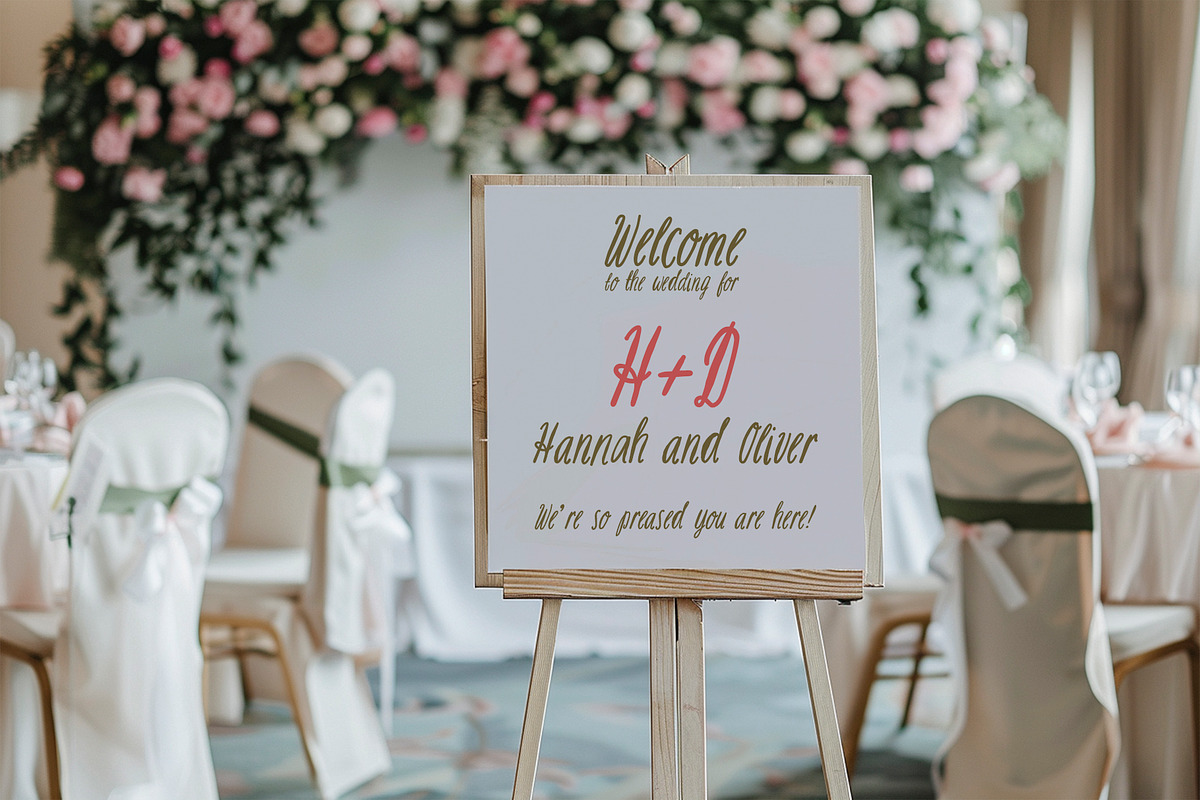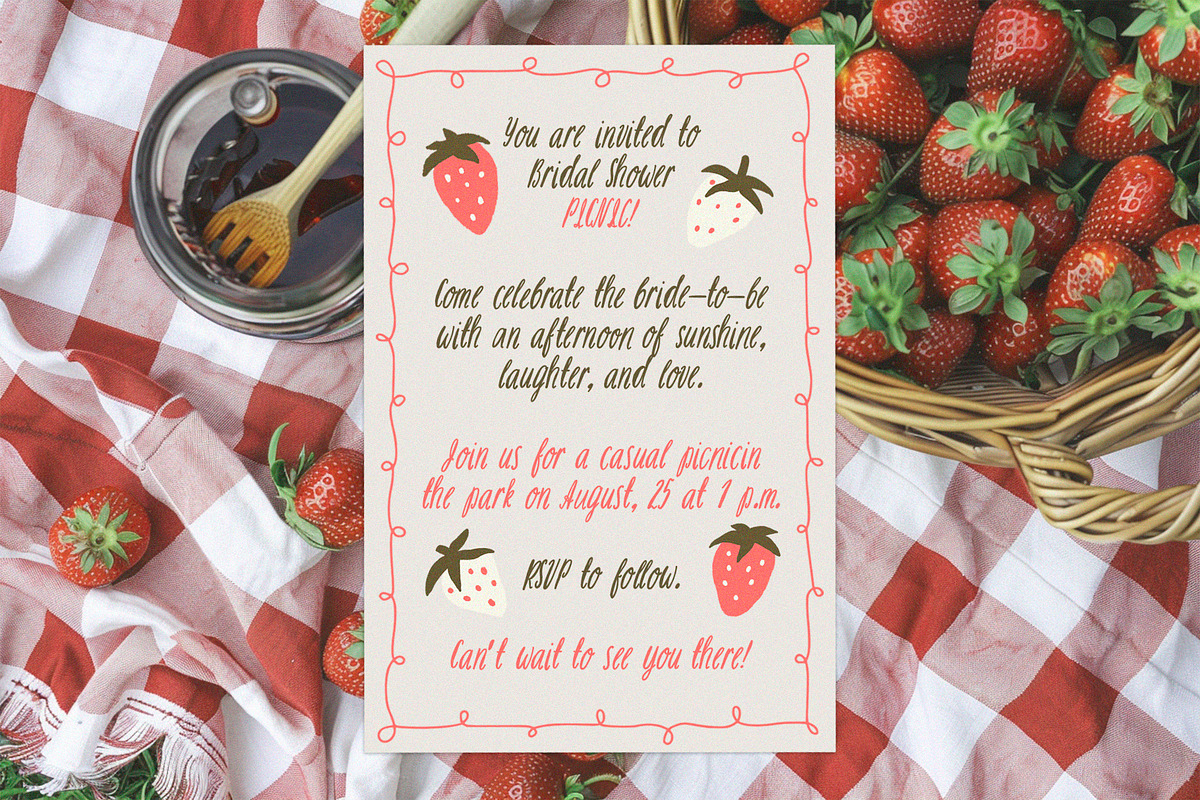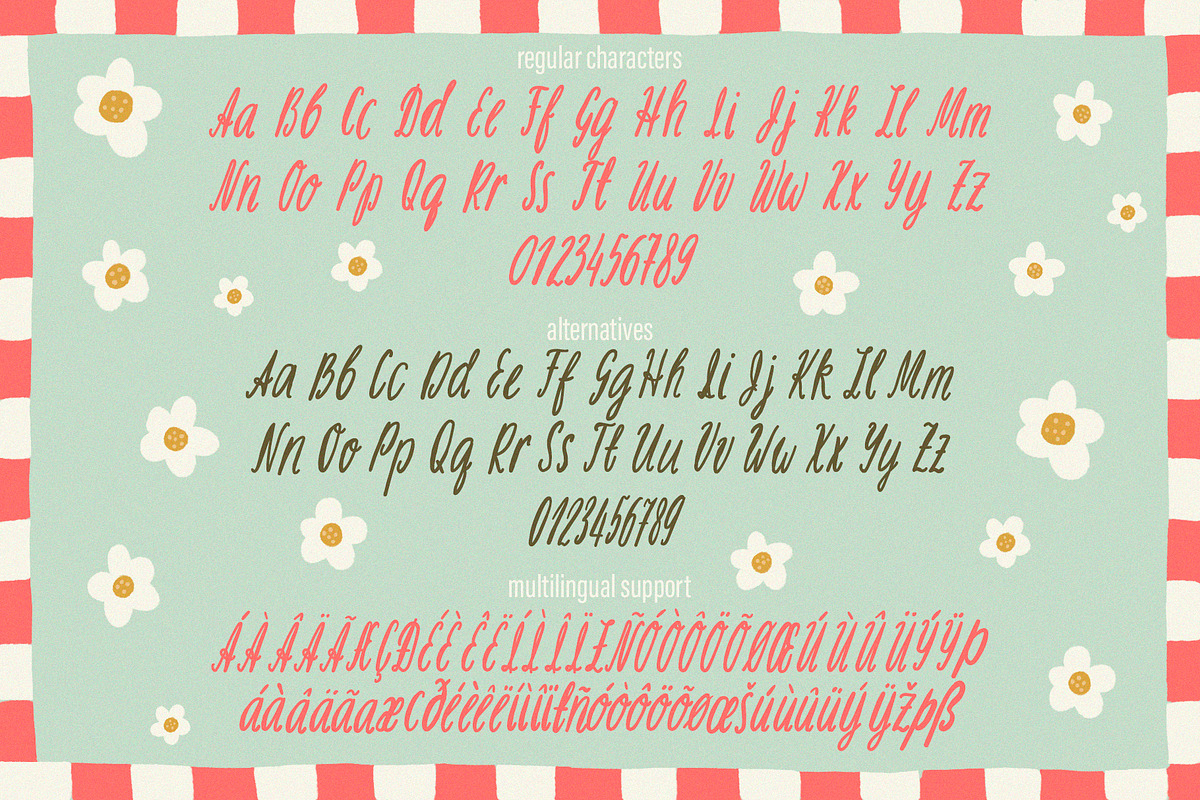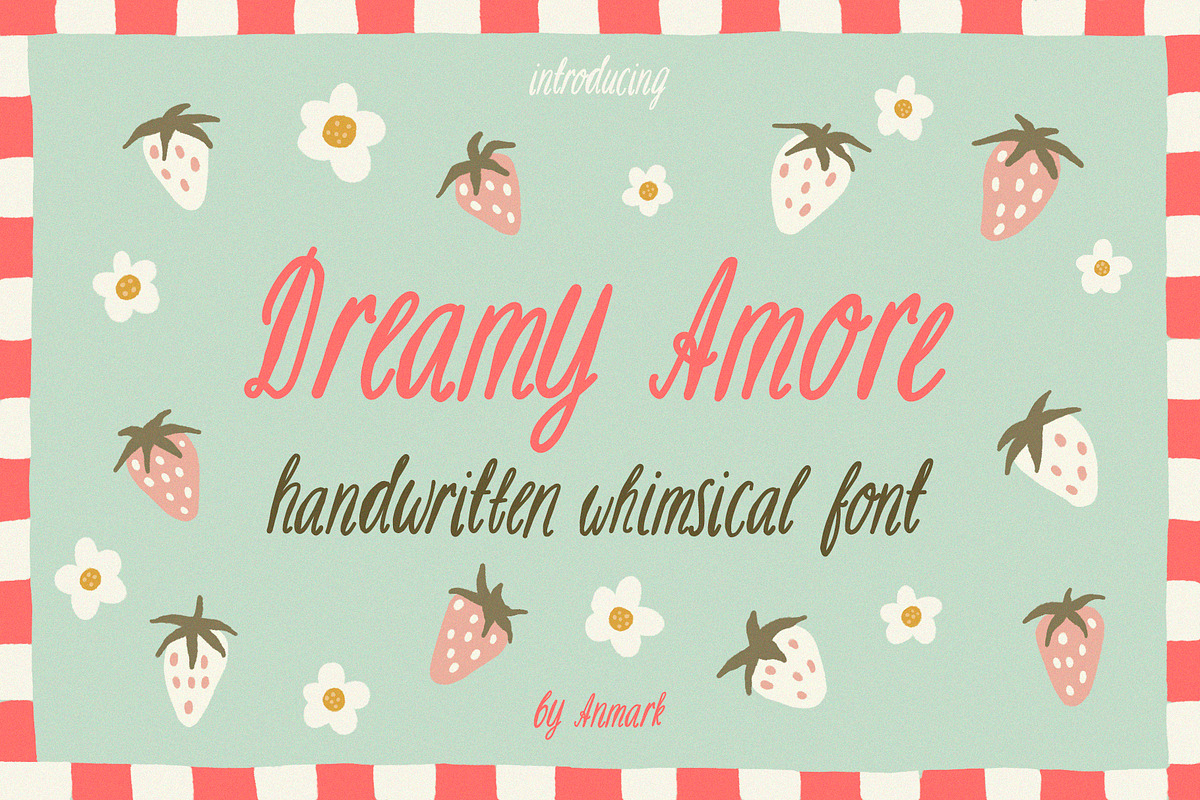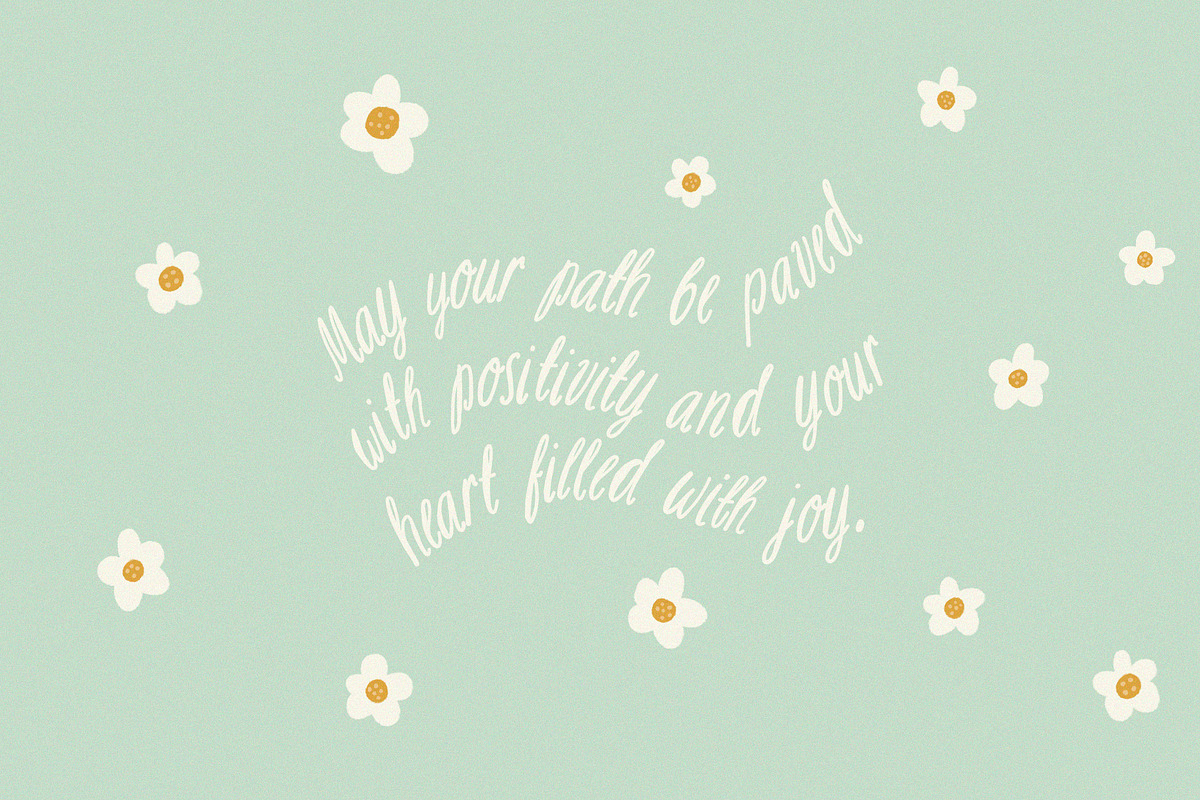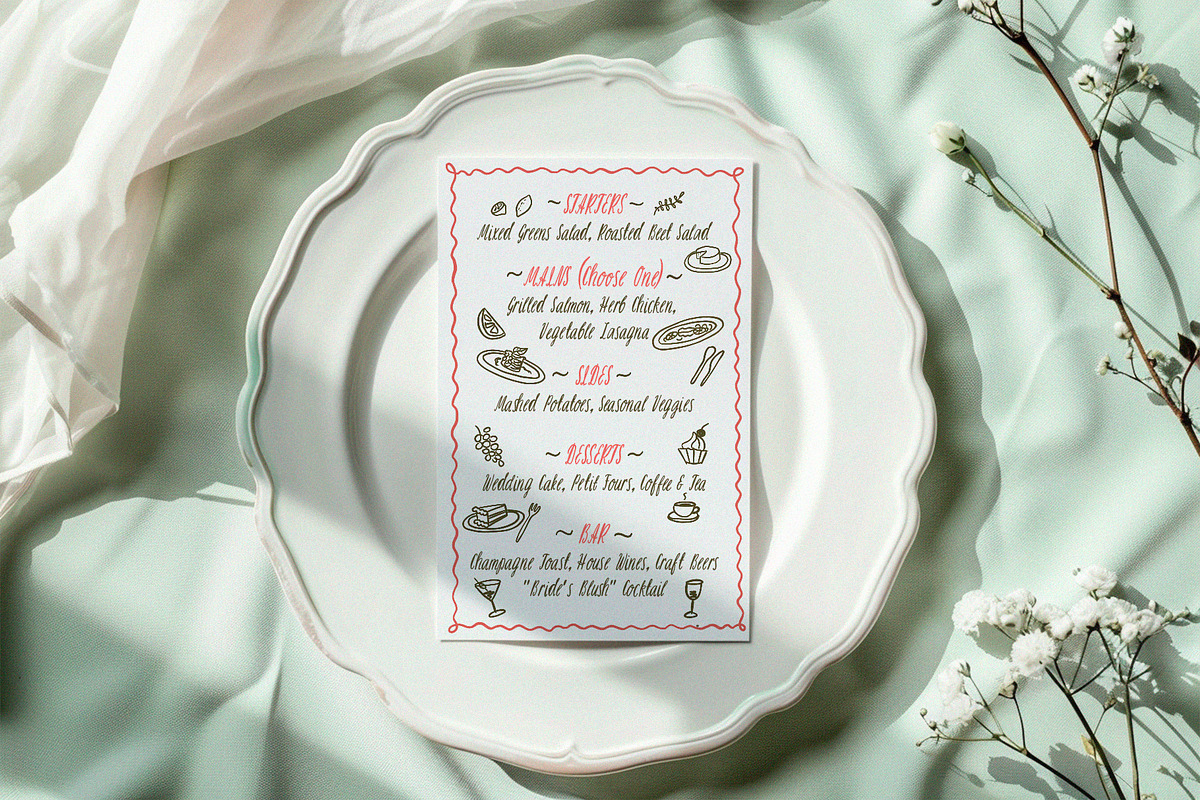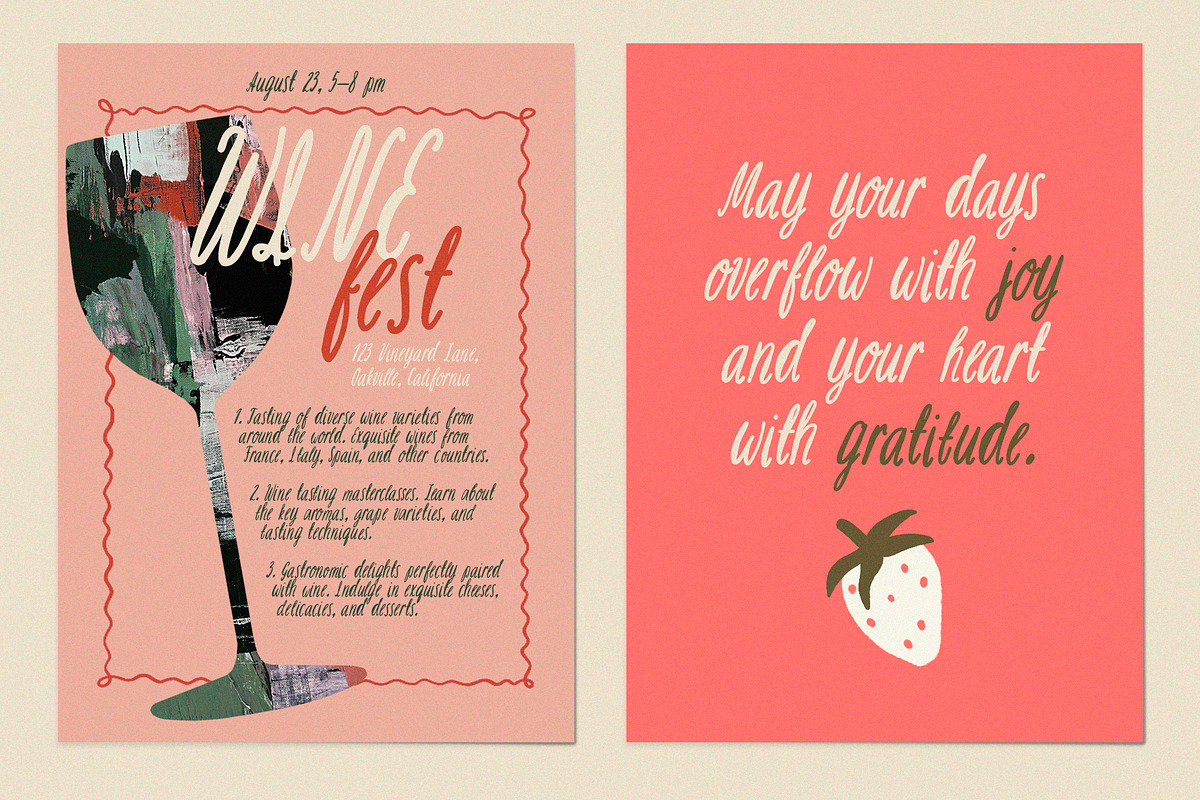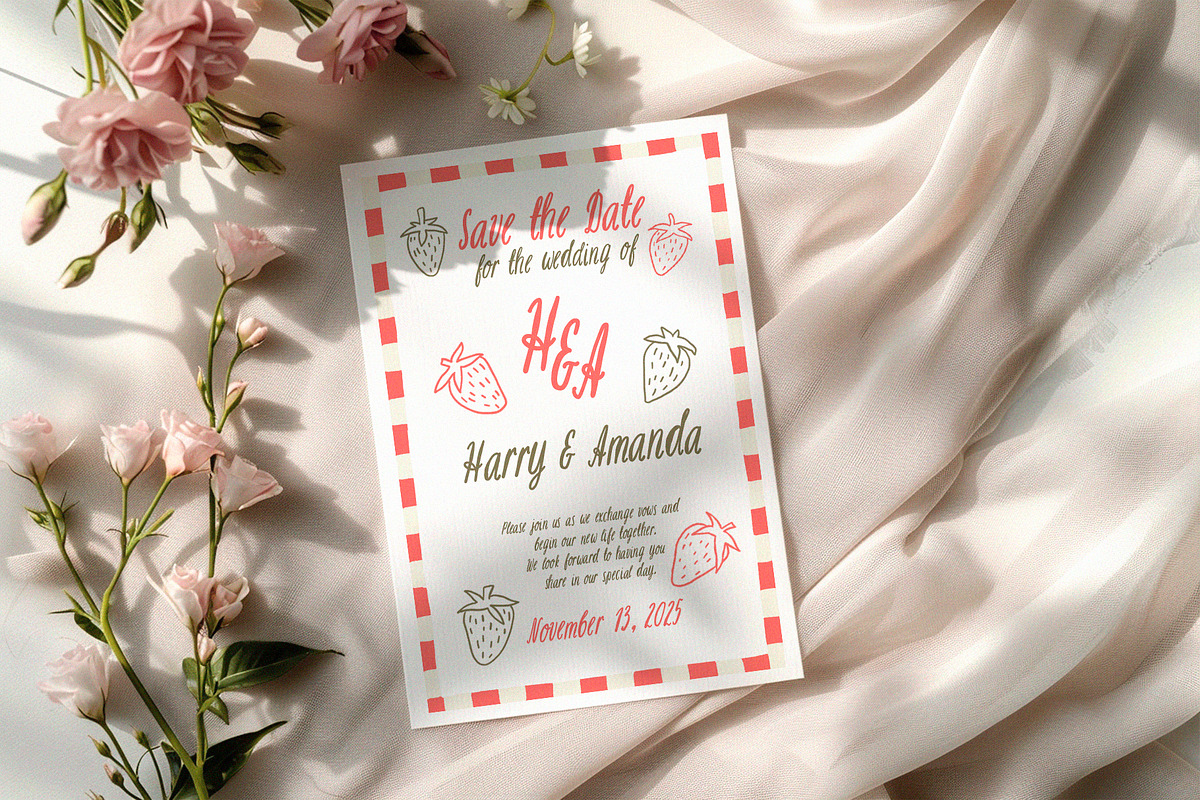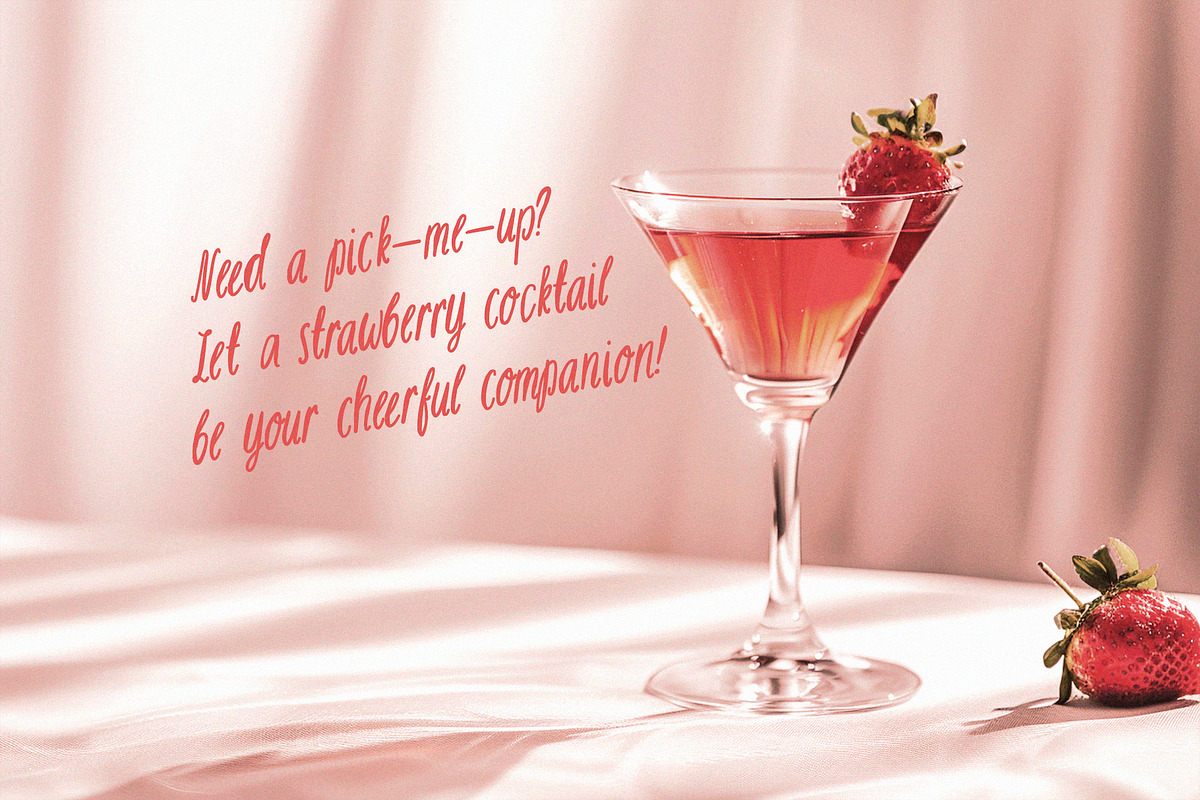
Dreamy Amore Whimsical Font
Introducing my new handwritten, whimsical font - Dreamy Amore. This romantic, flowing font has a smooth organic quality that will add an elegant, personal touch to any design.
Dreamy Amore would be perfect for menus, handwritten wedding invitations, modern wall art, Instagram posts, quotes, branding and more.
The font includes a full set of uppercase and lowercase basic characters, numbers, punctuation, and a complete set of alternate glyphs to add variety and character to your text.
Dreamy Amore also boast multilingual capabilities. They seamlessly support a variety of languages, including English, Spanish, French, German, Portuguese, Italian and other. This makes the font an adaptable choice for a wide range of international projects and global audiences.